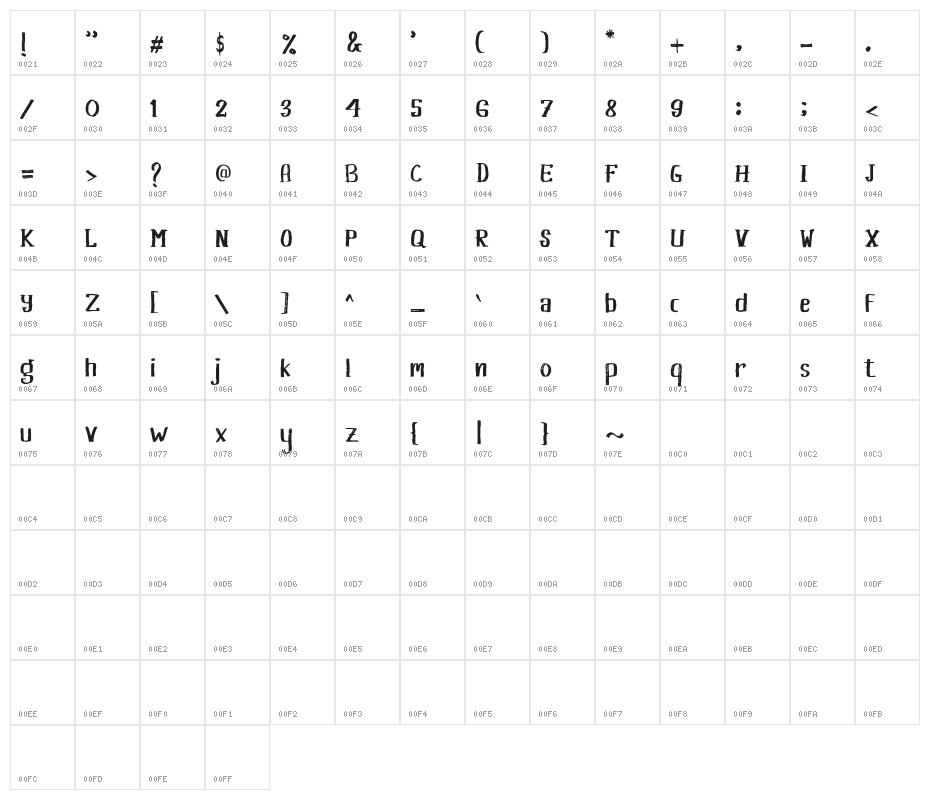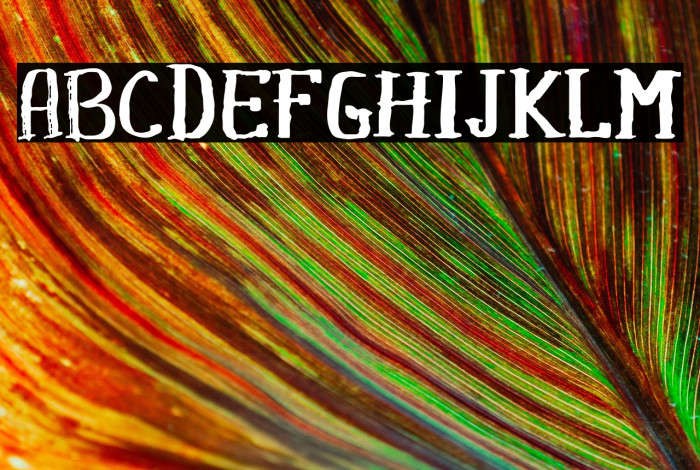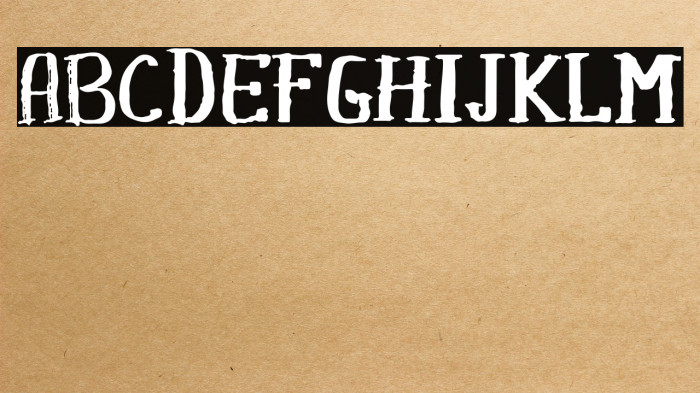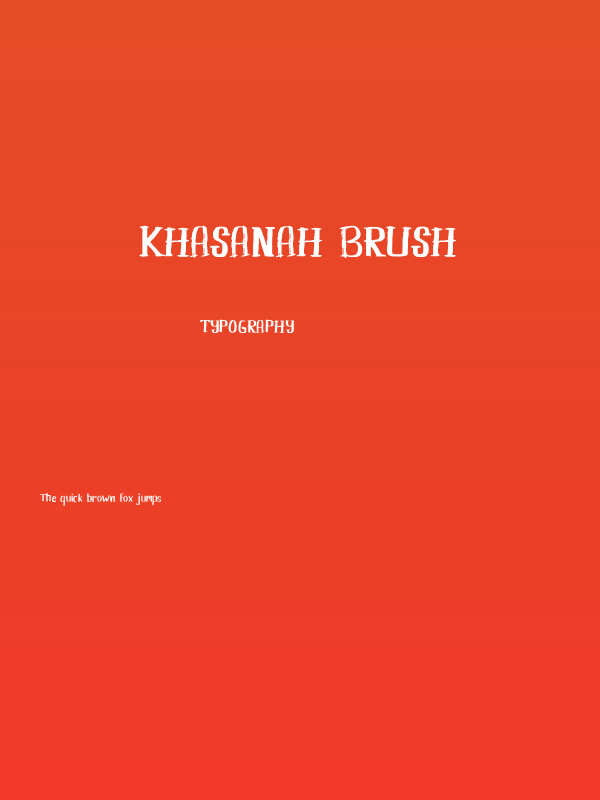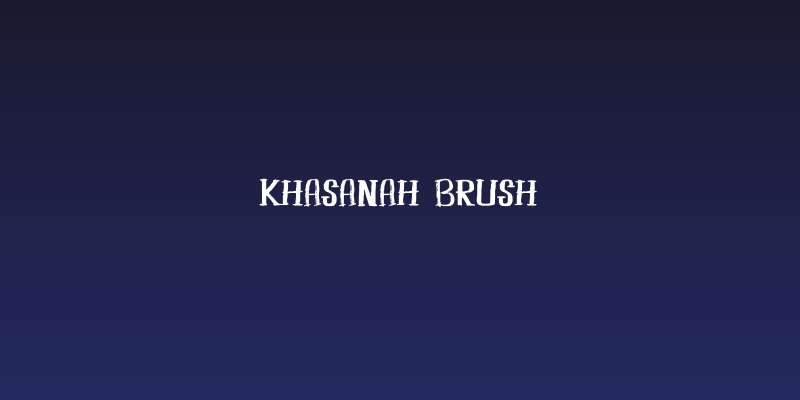
Khasanah Brush Font
Khasanah Brush Description
This font features a bold and expressive brush style, characterized by its rough, textured edges that give it a handcrafted appearance. The uppercase letters are strong and dynamic, while the lowercase letters maintain a consistent flow, adding to the font's overall artistic flair. The numerals and special characters are equally bold, maintaining the same brush-like quality throughout. This font's unique style makes it stand out, offering a sense of creativity and individuality. Its design is perfect for projects that require a personal touch or a statement piece.
| Proposed Projects | Ideal for artistic projects, branding, posters, and any design requiring a creative, handcrafted look. |